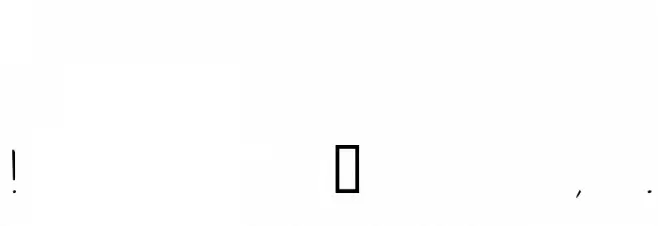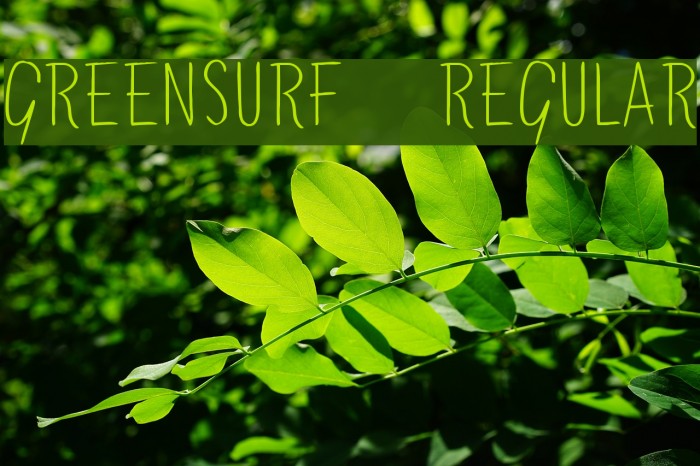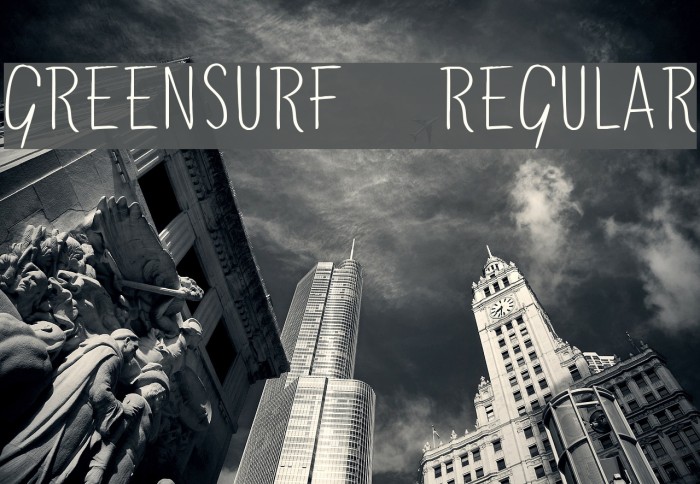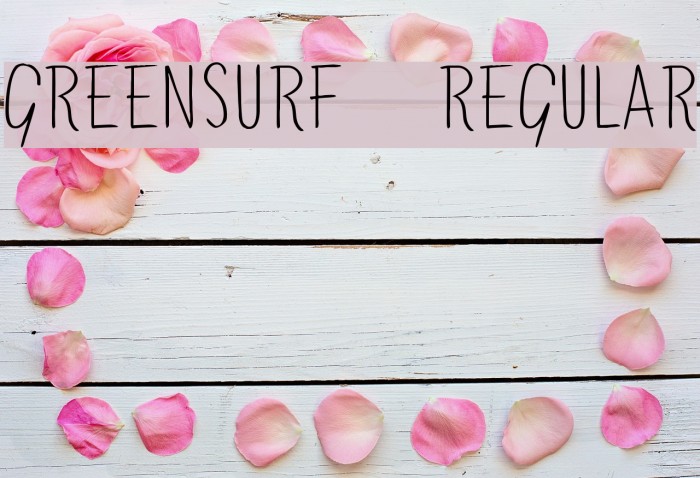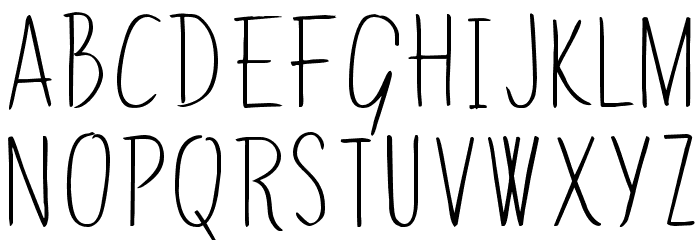
GreenSurf-Regular Font
GreenSurf-Regular Description
This font features a playful and casual handwritten style with tall, narrow letters. The strokes are slightly uneven, giving it a natural and organic feel. The uppercase and lowercase letters maintain a consistent height, creating a harmonious look. The font includes a full set of uppercase and lowercase letters, numerals, and a selection of special characters. Its informal and friendly appearance makes it suitable for projects that require a personal touch.
A playful handwritten font with tall, narrow letters and a casual style from Uncategorized fonts.
- Proposed Projects: Ideal for greeting cards, invitations, personal branding, and creative projects that require a friendly and approachable aesthetic.
- Overall Style: Casual
- Use Case: Headlines, Invitations, Personal Branding